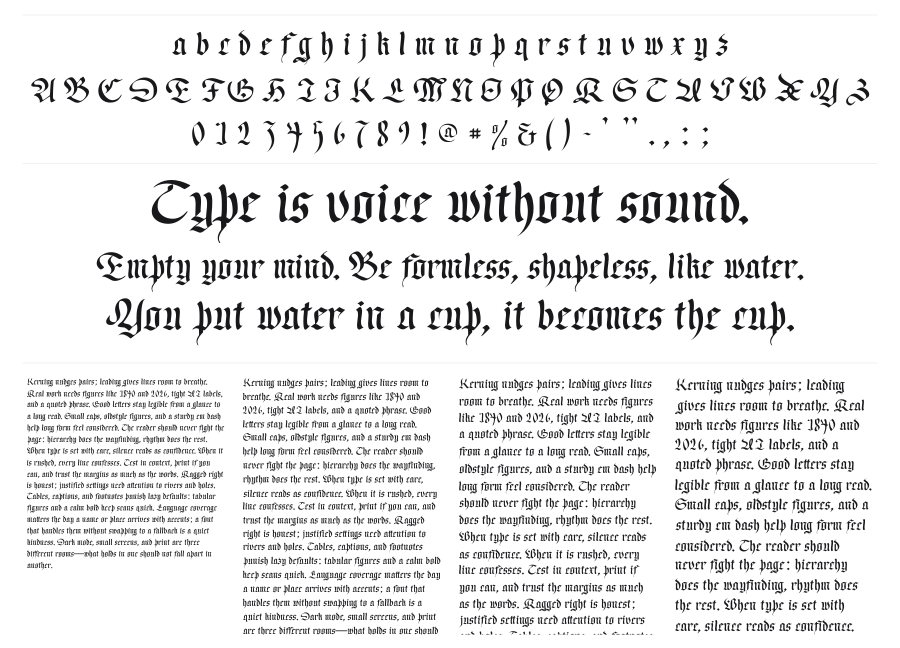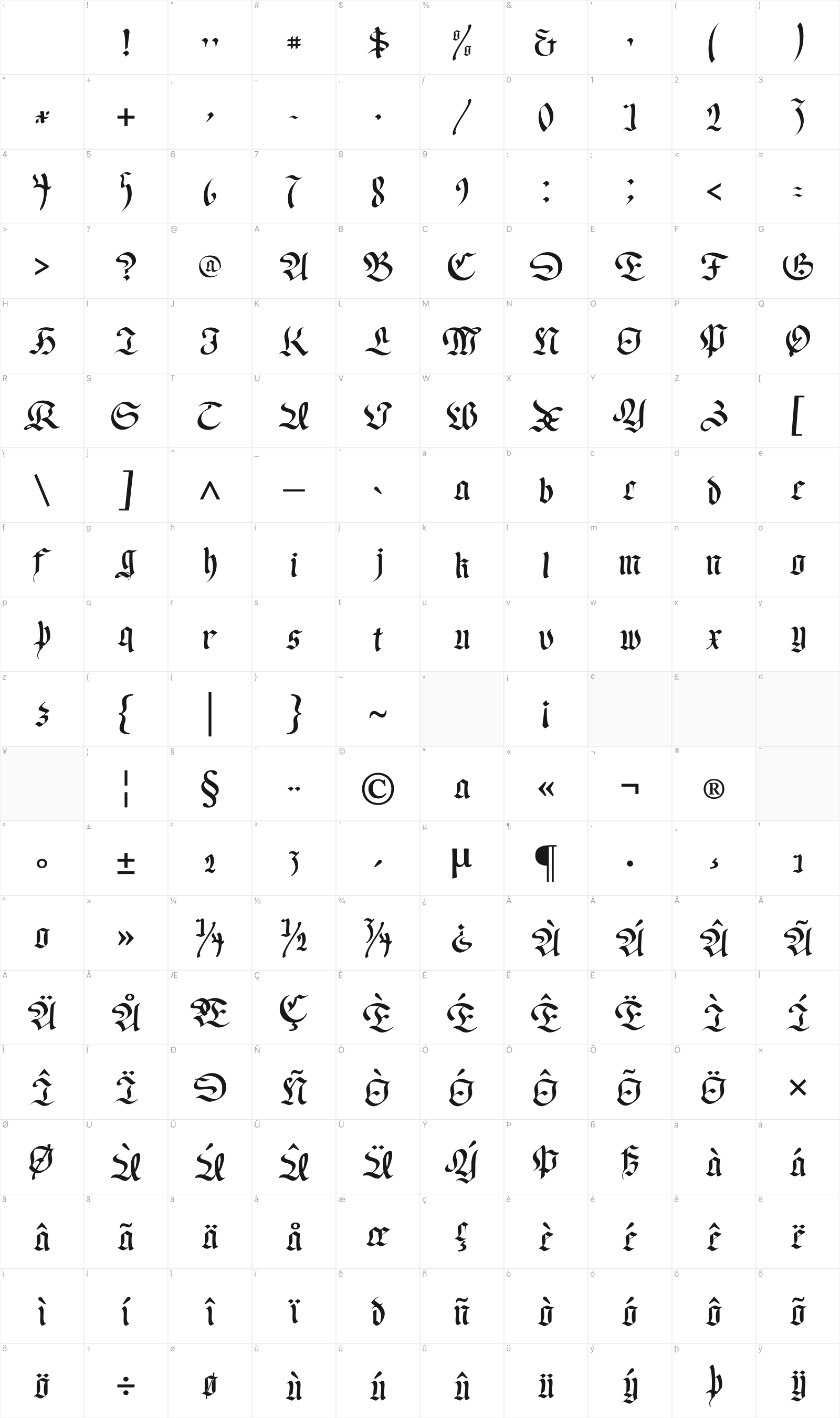
Regent UNZ
Regent UNZ is a bold Fraktur blackletter from Peter Wiegel that stays true to the traditional German typographic style, with ornate capitals and the characteristic broken strokes of historical gothic script. The letterforms carry real weight and formality, rooted in the kind of printing you'd find in centuries-old German books and documents. Best used for headlines, certificates, beer labels, or anything that calls for an authentic medieval Germanic presence.